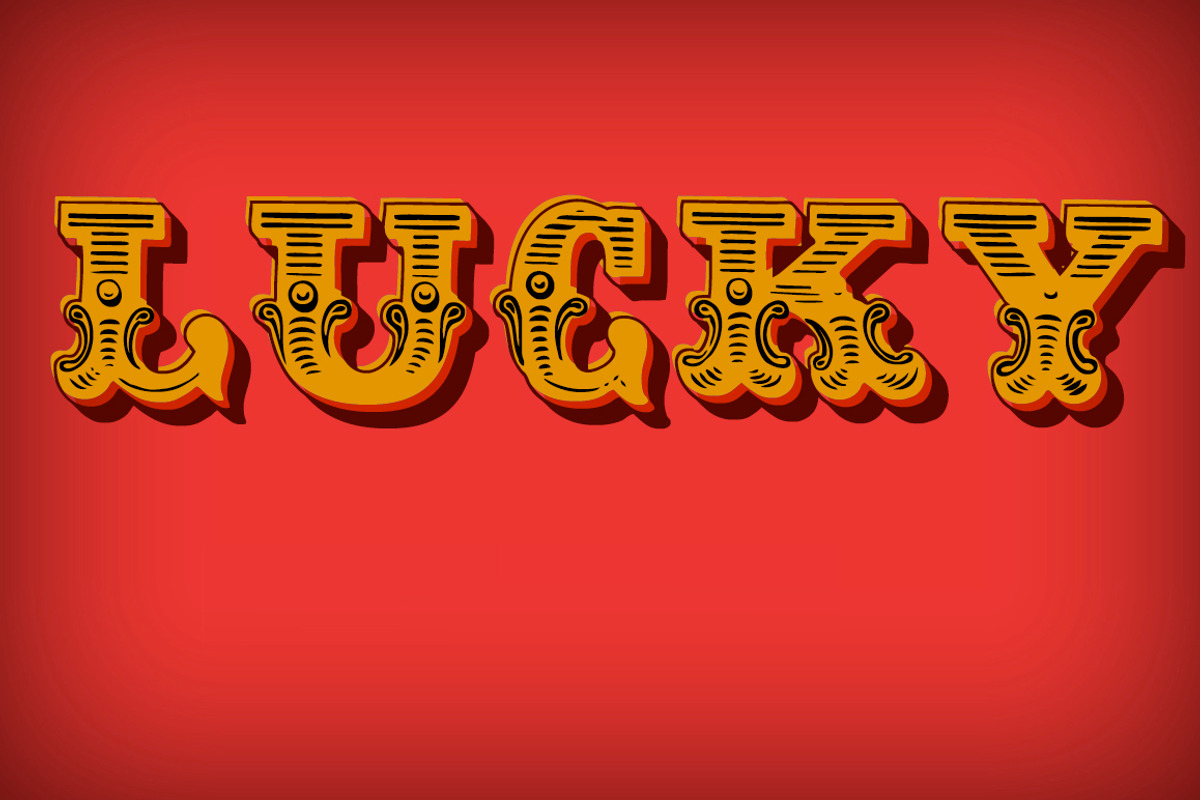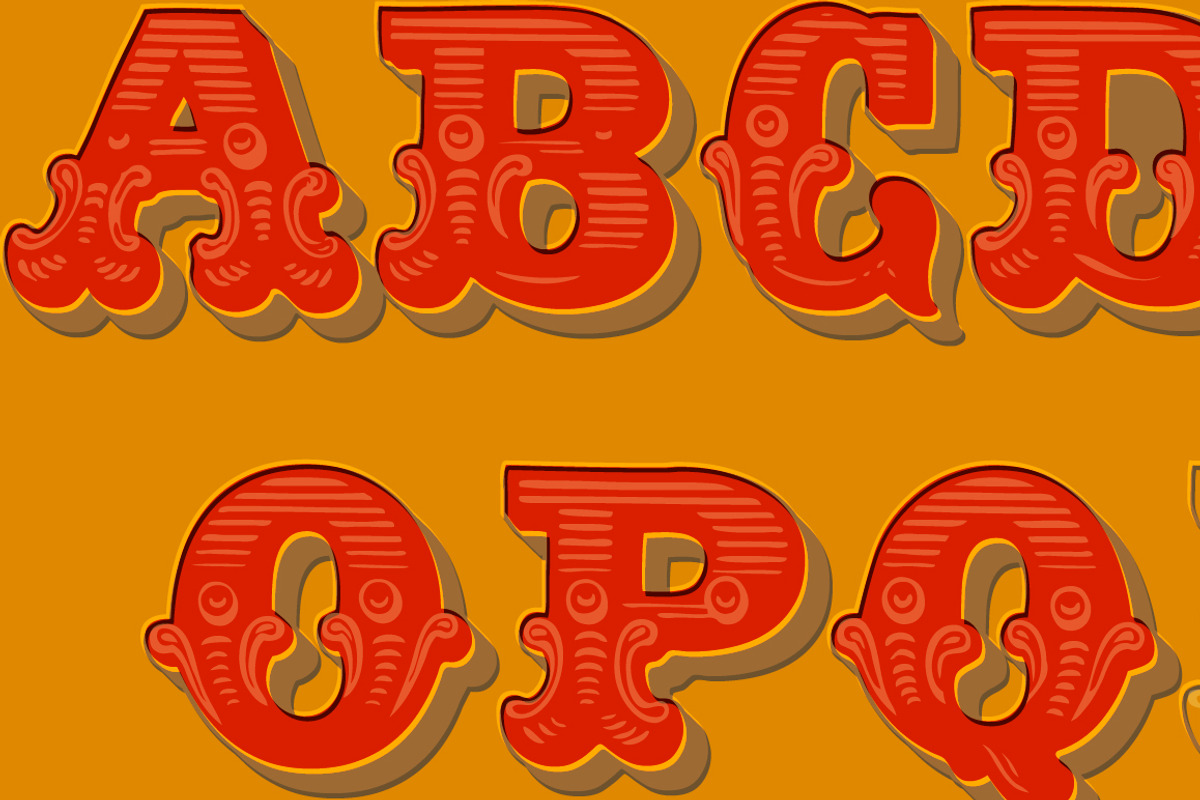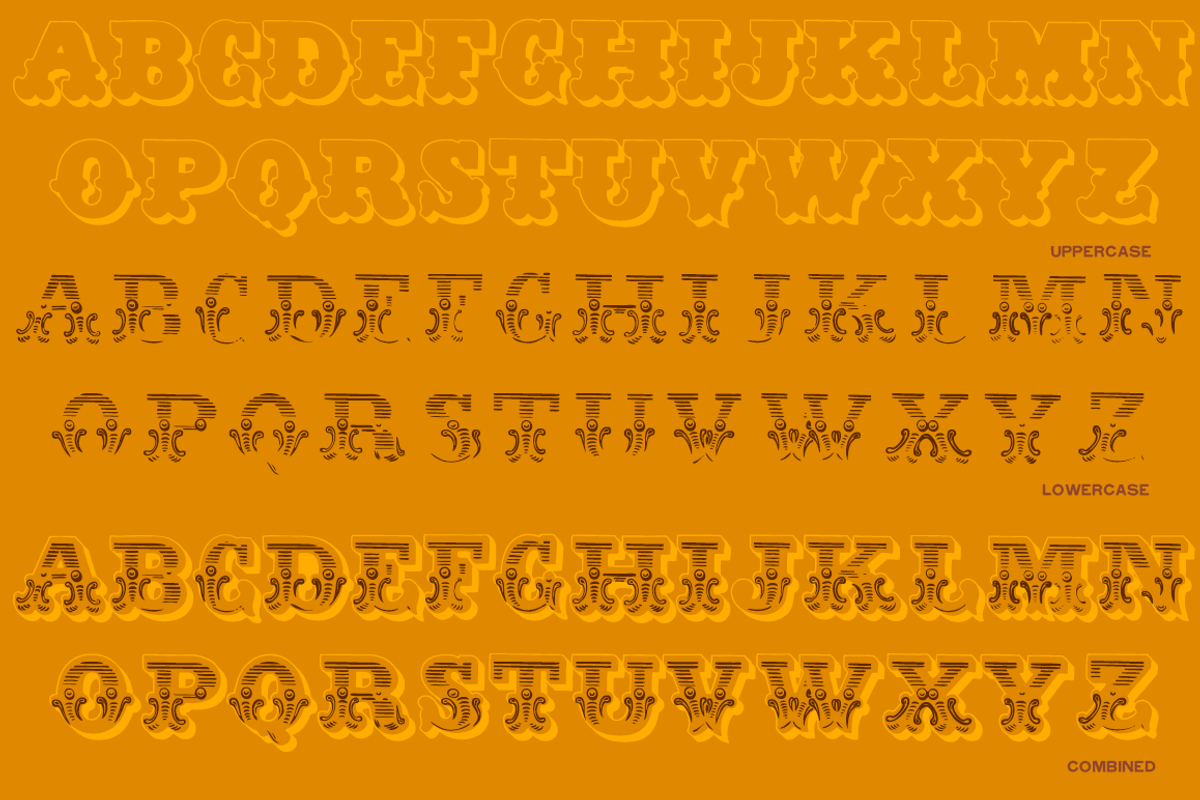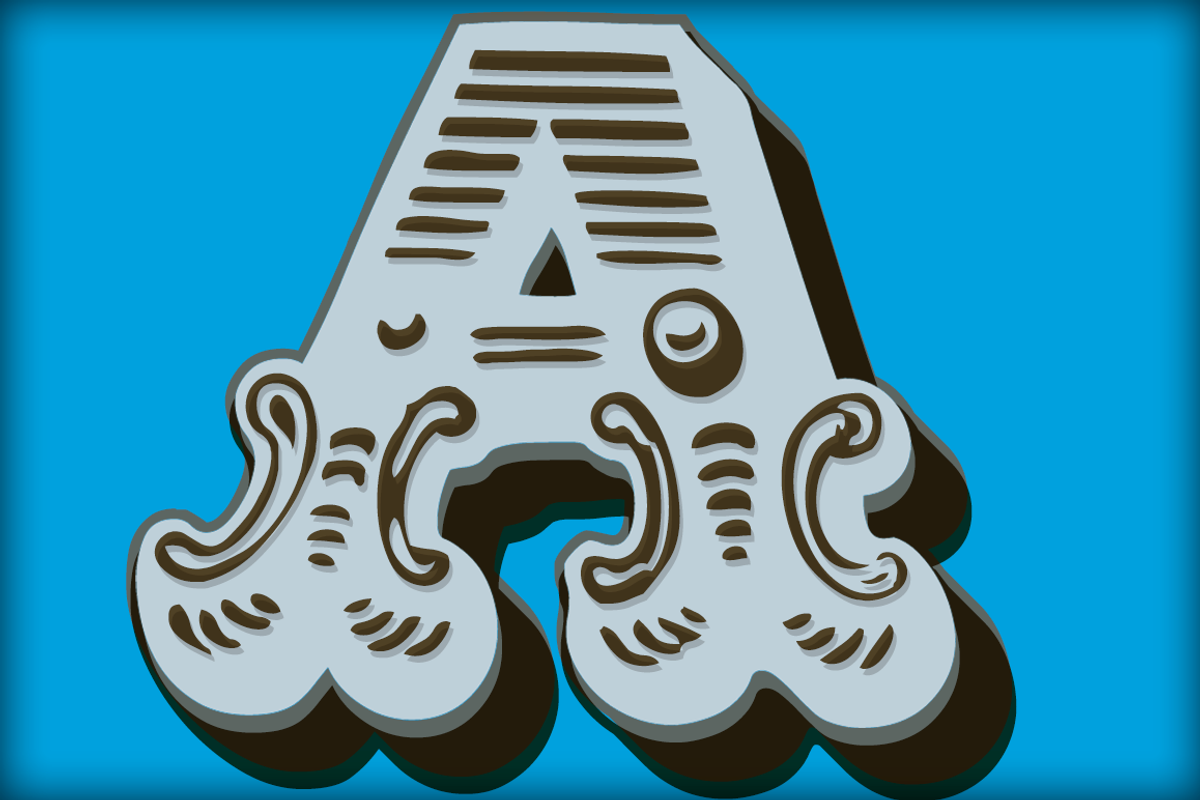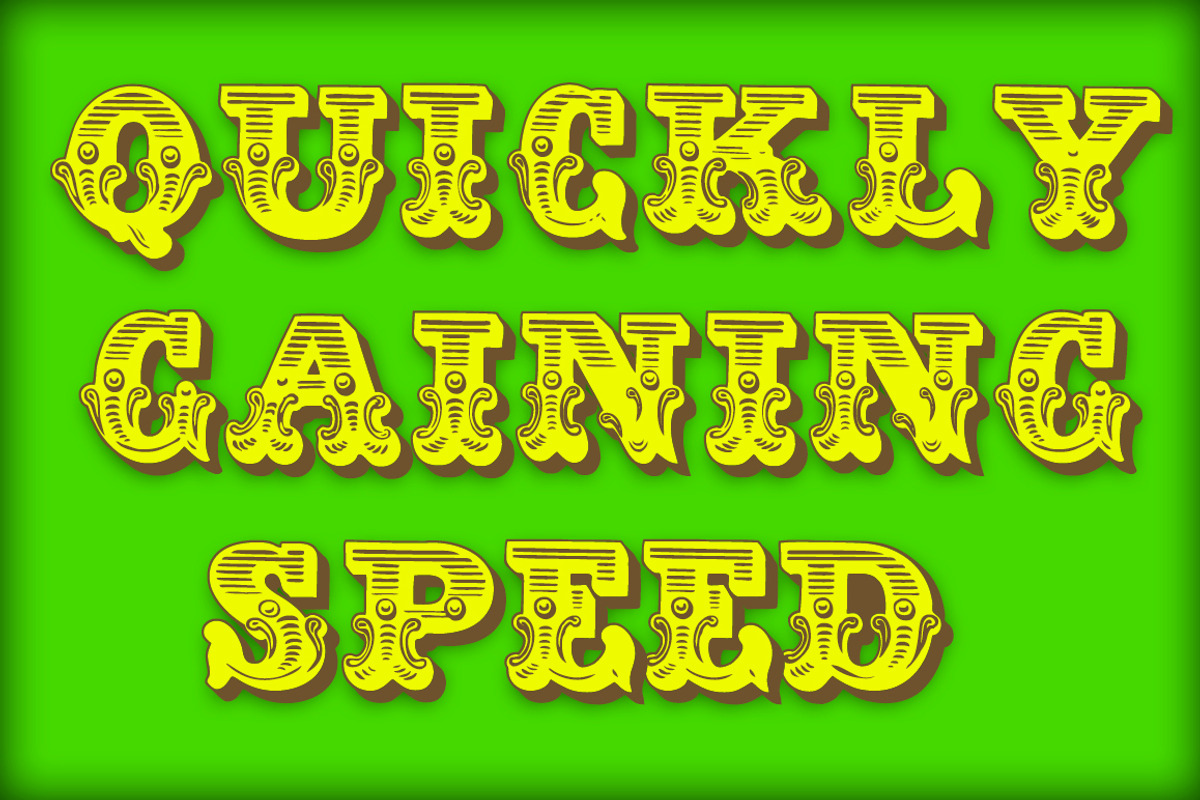
Dusty Circus LTD
Dusty Circus LTD by Baseline Fonts is a font selected for branding, posters, packaging, typography.
Why Dusty Circus LTD is worth a look
Dusty Circus LTD by Baseline Fonts fits naturally into Branding, posters, packaging, typography.